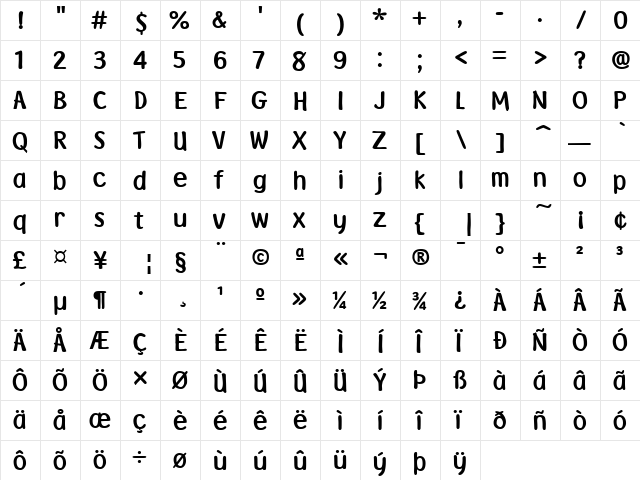
Fontoon Regular
Design Context for Fontoon Typeface
Fontoon takes a measured approach to typography — its balanced proportions and neutral character make it a reliable workhorse for both digital and print work.
Pro Tip: Use Fontoon in both headline and body roles to test its range before committing to a single application.